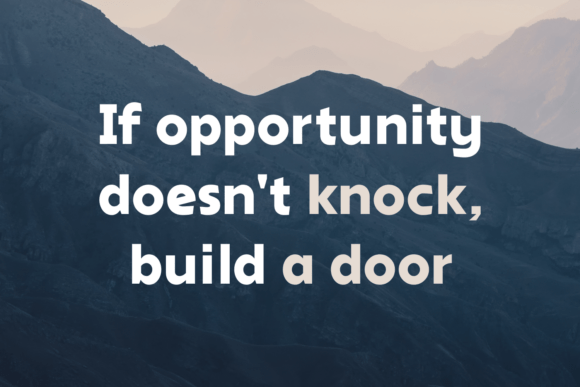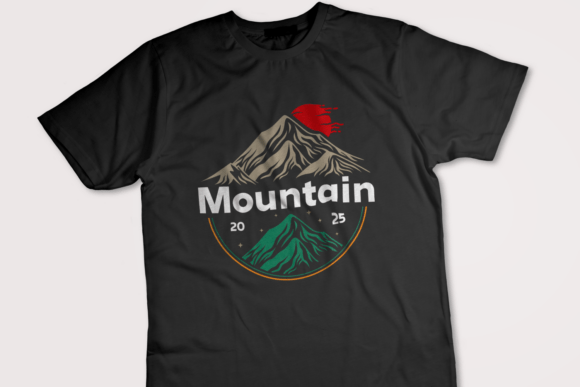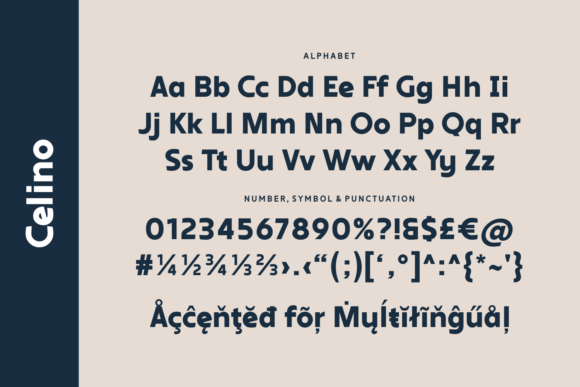
Introducing Celino Font: A Modern Sans Serif for Impactful Designs
In the world of typography, a font can make or break a design. For designers and crafters looking for a modern sans serif font that exudes confidence and sophistication, look no further than Celino. This geometric font from Creative Fabrica Fonts boasts strong, rounded letterforms that create a striking yet clean aesthetic, perfect for modern branding, headlines, and posters.
Key Features of Celino Font
- Geometric Design: Celino’s letterforms are crafted with geometric precision, giving it a modern and edgy feel.
- Strong and Rounded: The font’s bold lines and rounded edges create a sense of balance and harmony, making it perfect for headlines and titles.
- Clean Aesthetic: Celino’s clean design ensures that your message is conveyed clearly, without any visual clutter.
- Versatile: Suitable for a wide range of design applications, from branding and advertising to posters and signage.
What Makes Celino Font Stand Out
With so many fonts available, what sets Celino apart? Here are a few reasons why designers and crafters are raving about this modern sans serif font:
- Uniqueness: Celino’s geometric design and rounded edges give it a distinctive look that sets it apart from other sans serif fonts.
- Legibility: The font’s clean design and bold lines ensure that your text is easy to read, even at small sizes.
- Emotional Connection: Celino’s strong and confident letterforms evoke a sense of modernity and sophistication, making it perfect for brands looking to make a statement.
Design Applications for Celino Font
So, what can you create with Celino font? The possibilities are endless! Here are a few design applications to get you started:
- Branding: Use Celino to create a bold and modern logo that sets your brand apart.
- Headlines: Celino’s strong and geometric design makes it perfect for headlines and titles that demand attention.
- Posters: Create eye-catching posters with Celino’s clean and impactful design.
- Signage: Use Celino for signage that needs to be clear, concise, and visually striking.
Tips for Using Celino Font Effectively
To get the most out of Celino font, here are a few tips to keep in mind:
- Pair with contrasting fonts: Combine Celino with a contrasting font to create visual interest and hierarchy.
- Experiment with colors: Try Celino with different colors to create a unique and eye-catching design.
- Play with sizes: Use Celino in different sizes to create a sense of hierarchy and emphasis.